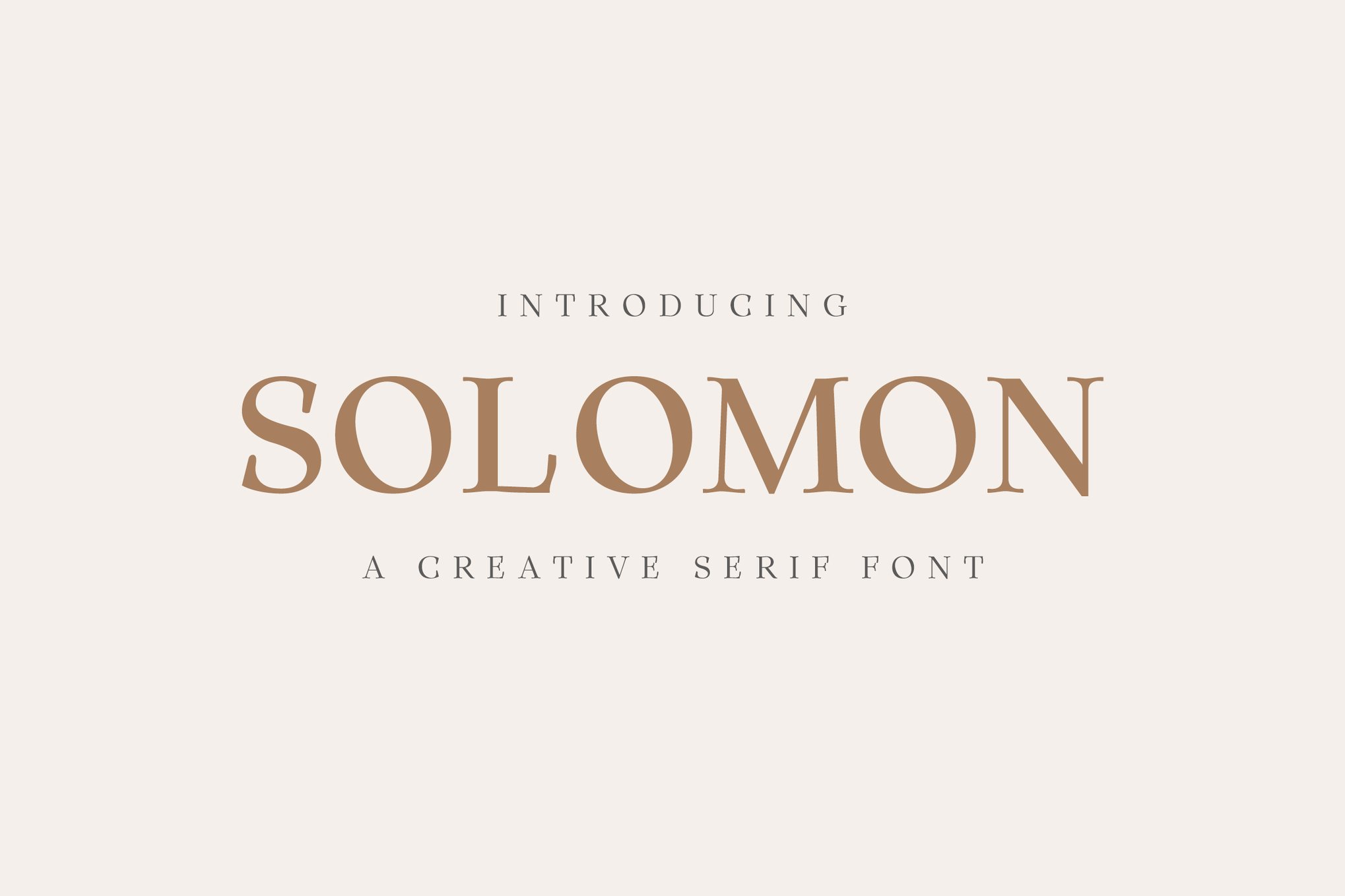
Solomon Serif Font Family
Solomon Serif Font Family is perfect for book publishing, academic journals, literary magazines, traditional newspapers, legal documents, historical publications, scholarly research papers, classical literature covers, formal certificates, and distinguished editorial layouts.
Solomon Serif Font Family is exciting because it embodies the wisdom and authority of classical typography while incorporating contemporary refinements that ensure exceptional readability in modern publishing environments. This font brings scholarly gravitas and intellectual sophistication to any project, making it ideal for publishers, educational institutions, and organizations that value knowledge, tradition, and literary excellence. Its timeless character and robust construction create an atmosphere of academic authority that commands respect and trust.
Solomon Serif Font Family includes light, regular, medium, bold, and black weights, each available in roman and italic styles, plus small caps, old-style numerals, and extensive scholarly character sets, providing designers with comprehensive typographic tools for complex academic and publishing systems.
This distinguished serif typeface combines centuries-old typographic wisdom with modern production excellence, making Solomon Serif Font Family Free Download an exceptional choice for serious publishing and academic applications. The font's carefully engineered letterforms feature classical proportions and optimized spacing that ensure comfortable extended reading while maintaining the authoritative presence essential for scholarly communication.
Whether you're designing academic textbooks, literary publications, or prestigious institutional materials, Solomon Serif Font Family delivers unparalleled reading comfort and intellectual credibility. The font excels particularly in long-form text applications where sustained readability and typographic dignity support serious scholarly discourse and literary appreciation.
Publishing professionals choose Solomon Serif Font Family for its ability to enhance comprehension while projecting intellectual authority and literary tradition. The font's classical character makes it the preferred choice for university presses, legal publishers, and prestigious literary journals.
Each character demonstrates masterful attention to readability optimization and classical proportions, featuring the timeless elegance and scholarly authority that has defined the finest traditions of academic publishing and literary excellence.